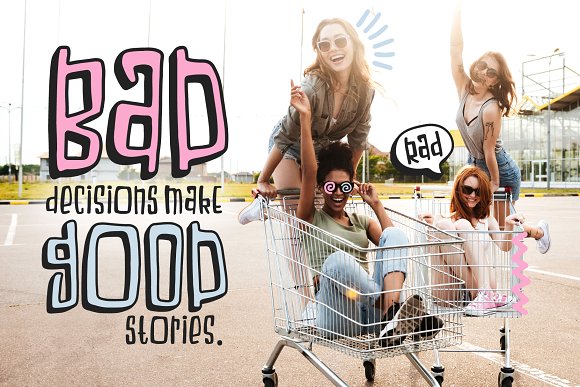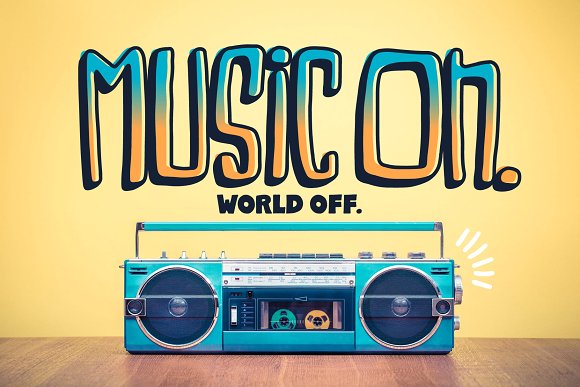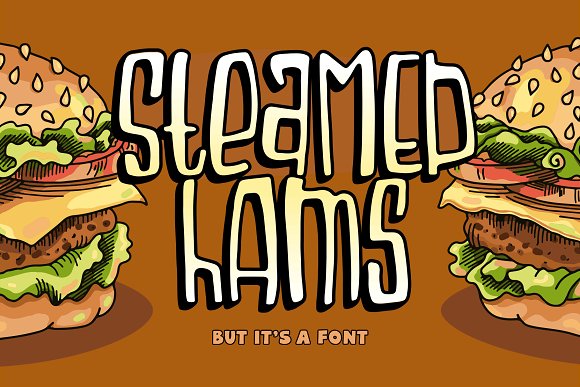
Steamed Hams Font
Packed with personality, Steamed Hams (but it’s a font) is every bit as fun and ridiculous as its namesake. With a bit of a retro feel, Steamed Hams comes with two versions that can be layered together or used separately. BONUS: Also included is a set of fun doodles!